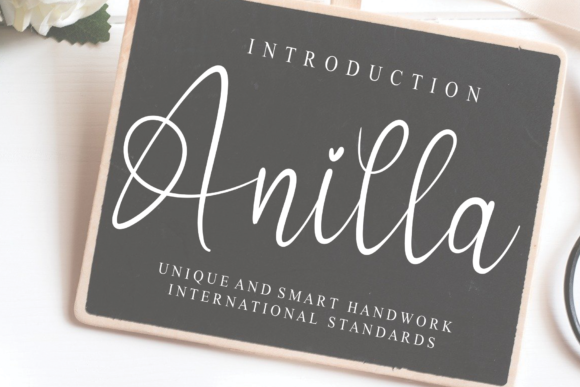
Embrace the allure of Anilla, a captivating script font crafted with meticulous precision. Its graceful curves, reminiscent of flowing water, evoke a sense of elegance and refinement. Each stroke is a testament to the artistry of its creator, Roronoa zoro.S.P.D., who has poured his passion into every letterform.
Immerse yourself in the beauty of Anilla's display posters, where words take flight and dance before your eyes. Its enchanting swashes lend a touch of whimsy and delight, transforming ordinary text into extraordinary works of art. Whether you're crafting invitations for cherished occasions or designing posters that demand attention, Anilla will elevate your creations to new heights.
Unleash your creativity with Anilla, the perfect font for expressing your innermost thoughts and emotions. Its delicate strokes will caress your words, imbuing them with a touch of magic and wonder. As you write, let your imagination soar and witness the transformative power of Anilla, a font that will ignite your soul and captivate all who behold it.